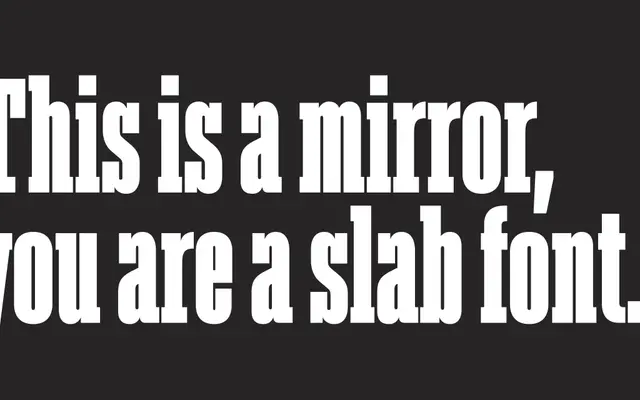
Akkordeon Slab
A slab-serif companion to Akkordeon, offered in fourteen numerically named steps and a variable font, built for high-impact headlines in sports, fashion and editorial contexts.
Sharing the same skeletal structure as the original Akkordeon, this slab variant applies a heavier, more assertive voice to the same underlying forms. Fourteen discrete styles progress from hairline-thin to extreme weight, each sold individually or as a complete family, with a variable font covering the full range in a single file. The Latin Extended character set makes it broadly usable across European languages.
A slab serif designed explicitly for ultra-display use, sharing the skeleton of the original Akkordeon grotesque family but recast with slab serifs for stronger impact at headline sizes.